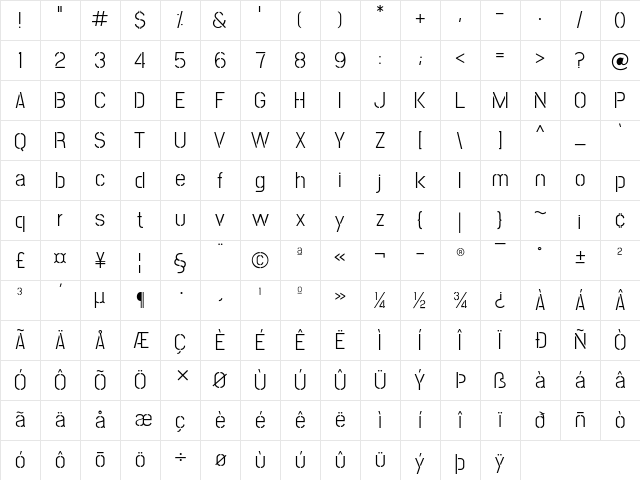
Complete Post No Bills Colombo Regular glyph index. Displaying only characters natively supported by Post No Bills Colombo Regular font.
Post No Bills Colombo is a composed and adaptable typeface that performs quietly and consistently across a wide range of design contexts.
Pro Tip: Use Post No Bills Colombo in both headline and body roles to test its range before committing to a single application.
Who designed the Post No Bills Colombo Regular font?